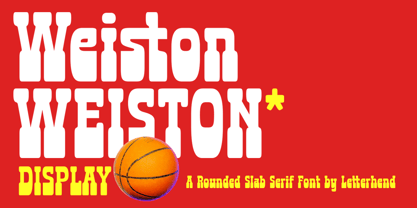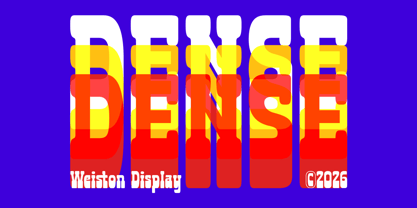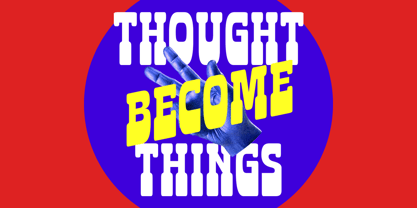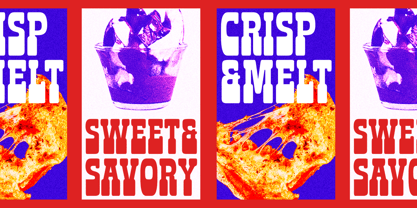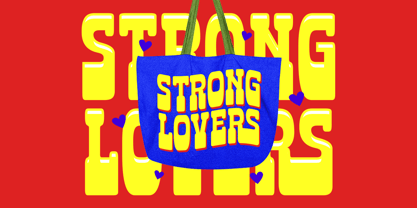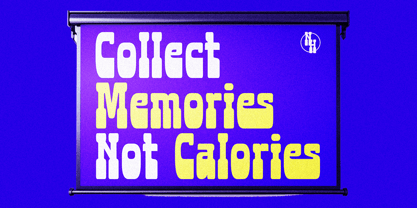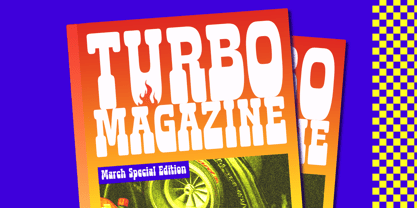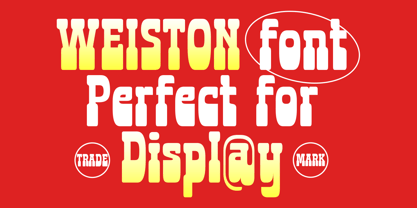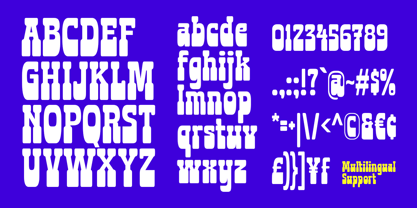
Weiston
by Letterhend
Big, bold, and ready to play—Weiston brings a chunky rounded slab serif style with a fun retro punch. Its strong shapes and soft edges create a confident look that feels both classic and playful, like vintage sports posters and old-school signage rolled into one cool typeface. Features : Uppercase & lowercase Numbers and punctuation Alternates & Ligatures Multilingual Support PUA encoded